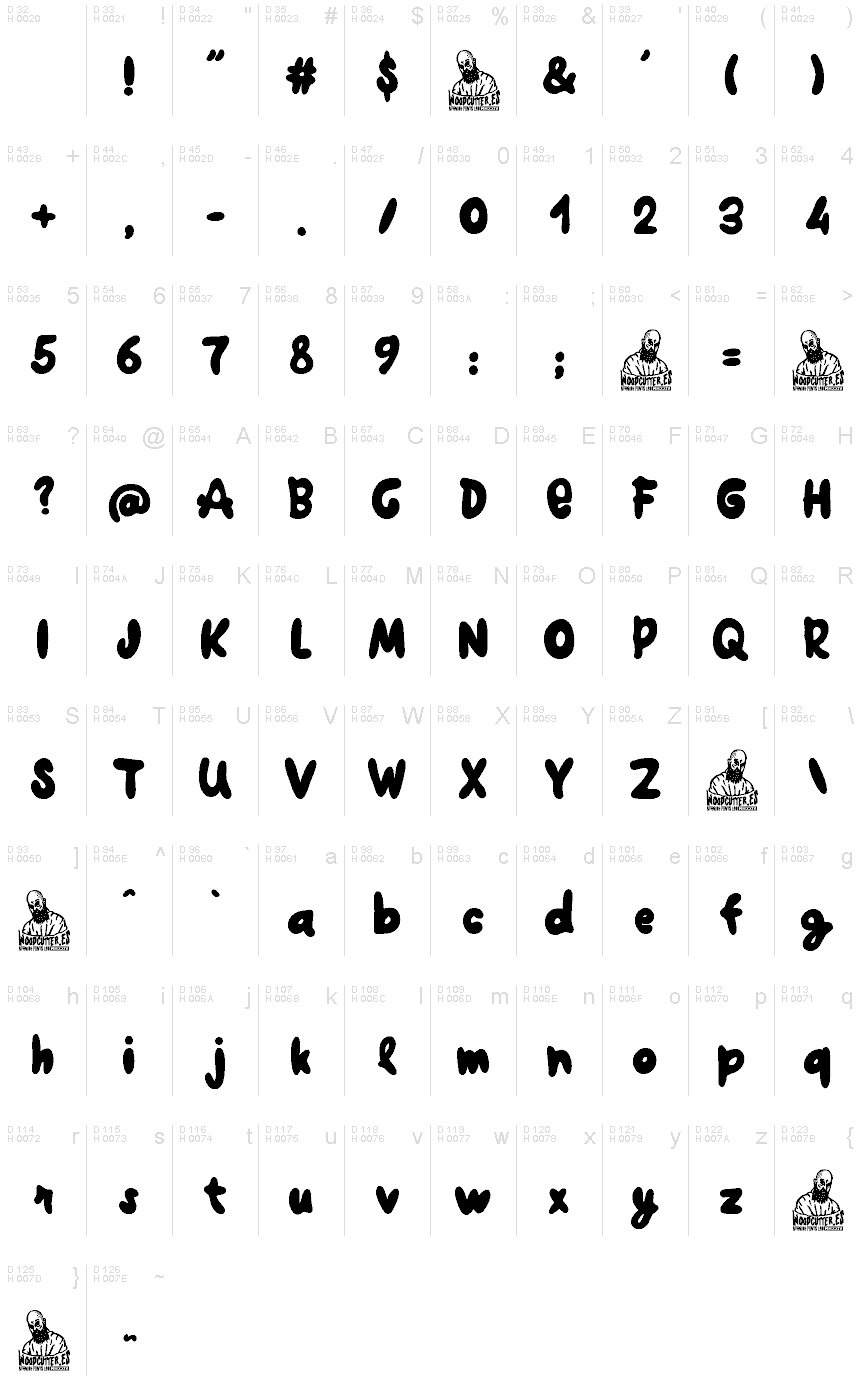
The Big Joe
The Big Joe font by Woodcutter is a brush display typeface with a heavyweight design. In addition to its bold visual appearance, this variable style font features rounded natural characters. Their casual looks make The Big Joe feel friendly and synthesis a retro-inspired vibe in designs. The overall relaxed mood delivered by the typeface can never be mistaken.
Free for all kinds of personal and commercial projects, this font is suitable for logo design, posters, video games titles, mobile applications, packaging design, print on fabrics with t-shirts and bags at the top of the list among other products. Use it in branding books, movie titles openers or teasers; all are great choices too.